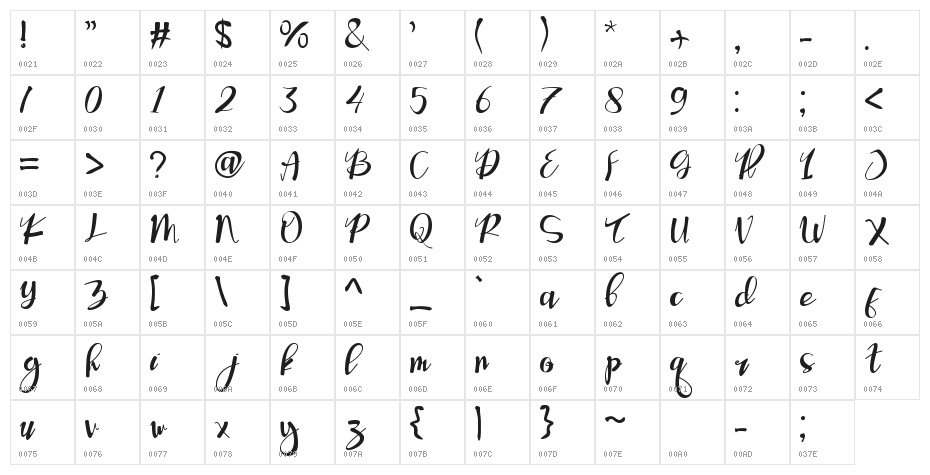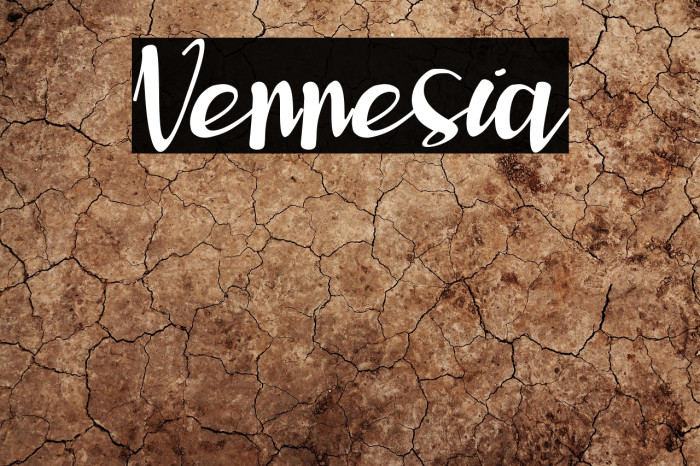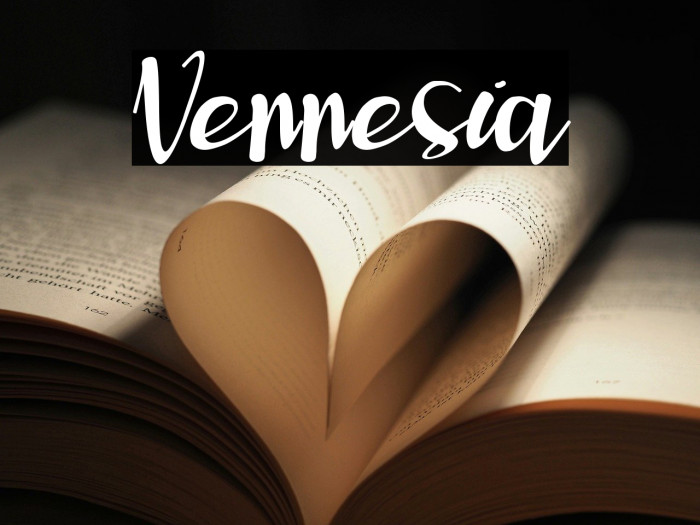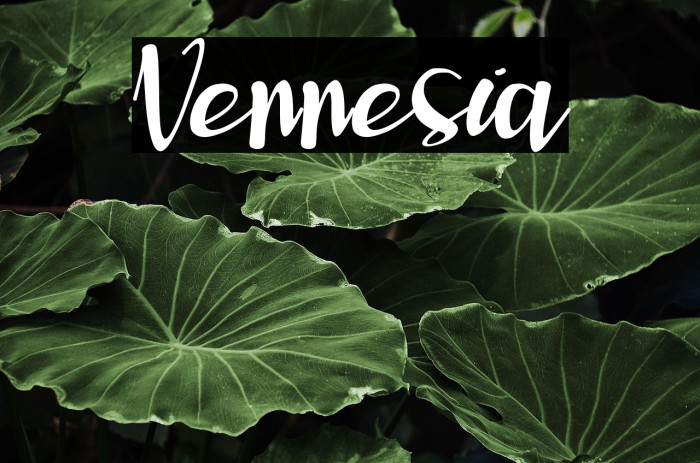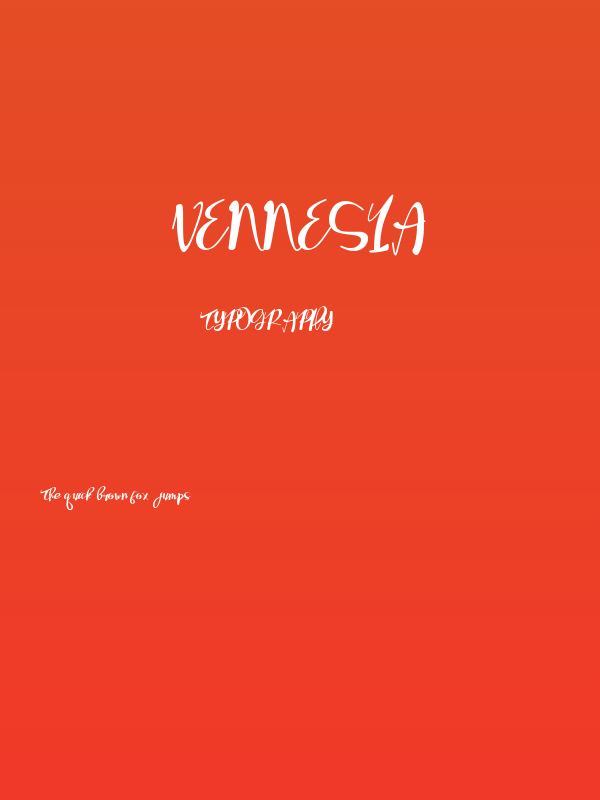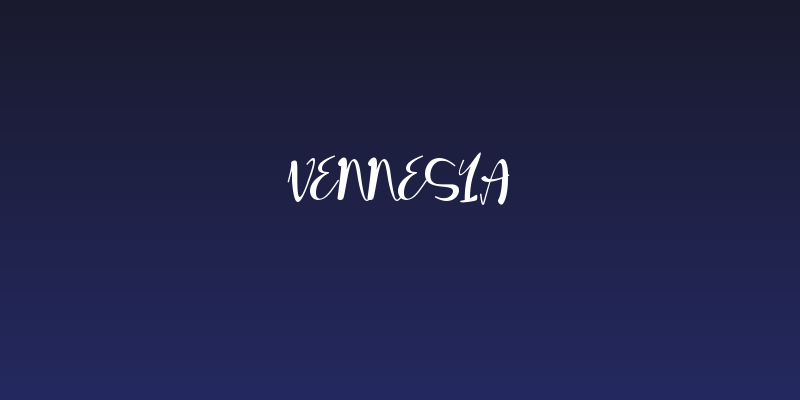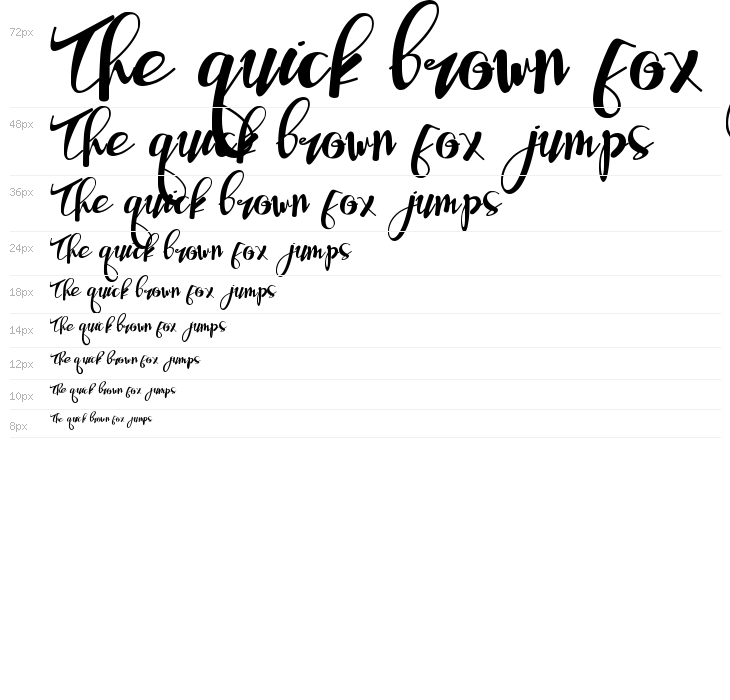
Vennesia Font
Vennesia Description
This font exhibits a dynamic and fluid script style, characterized by its elegant and flowing letterforms. The uppercase letters are bold and expressive, with sweeping curves and a sense of motion. The lowercase letters maintain a consistent style, offering a harmonious blend of thick and thin strokes that enhance readability while maintaining an artistic flair. The numerals are crafted with the same attention to detail, ensuring they complement the overall aesthetic. Special characters are integrated seamlessly, adding versatility to the font's use. The overall impression is one of sophistication and creativity, making it suitable for a variety of design applications.